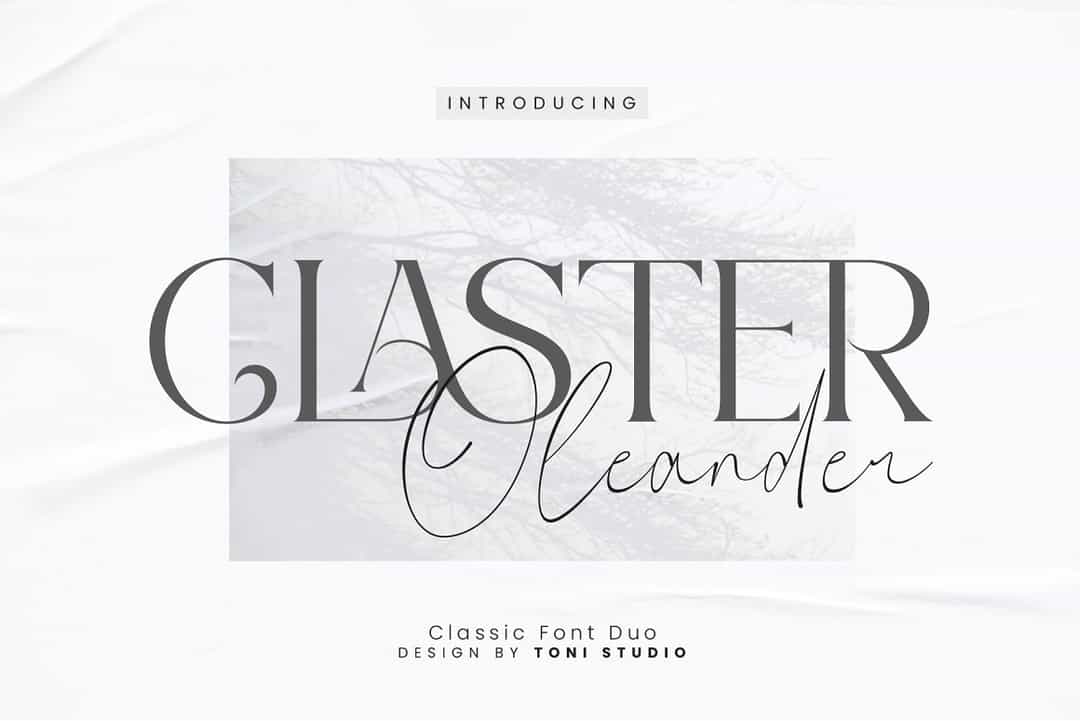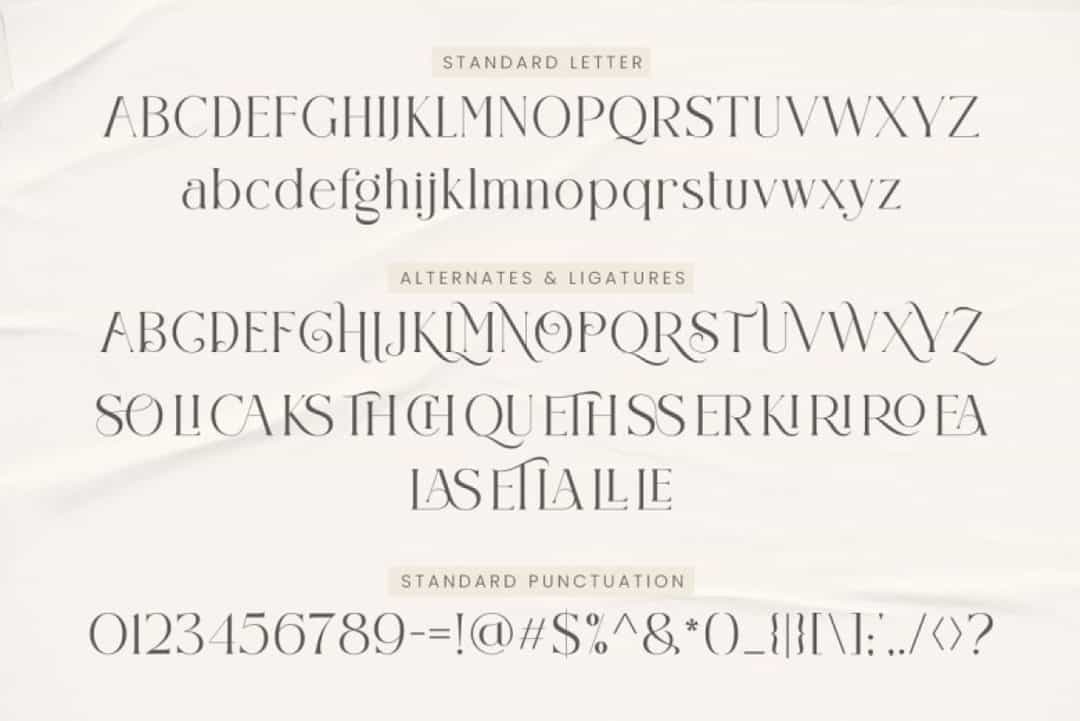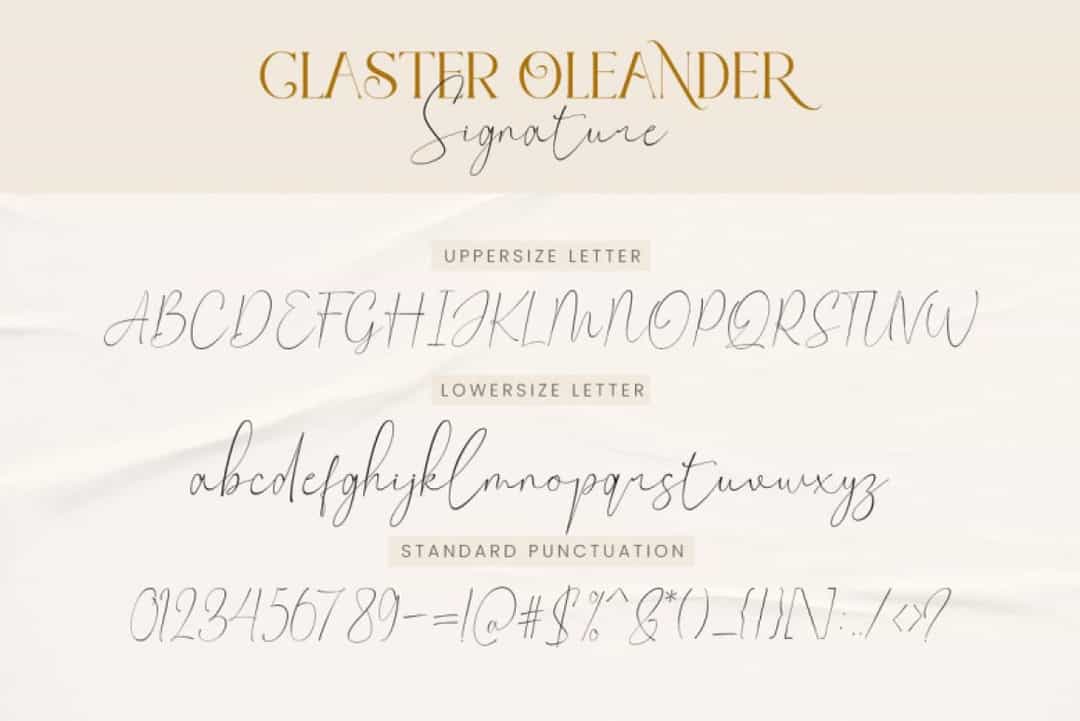
Claster Oleander Font Duo has finally arrived! Bringing an old-school serif typeface back into fashion by adding elegant curves and handwritten script, Claster Oleander Font Duo brings classy yet elegant design to websites, modern logos, brand identities and social media-related quotes, wedding stationery or anything else you need for your next project!